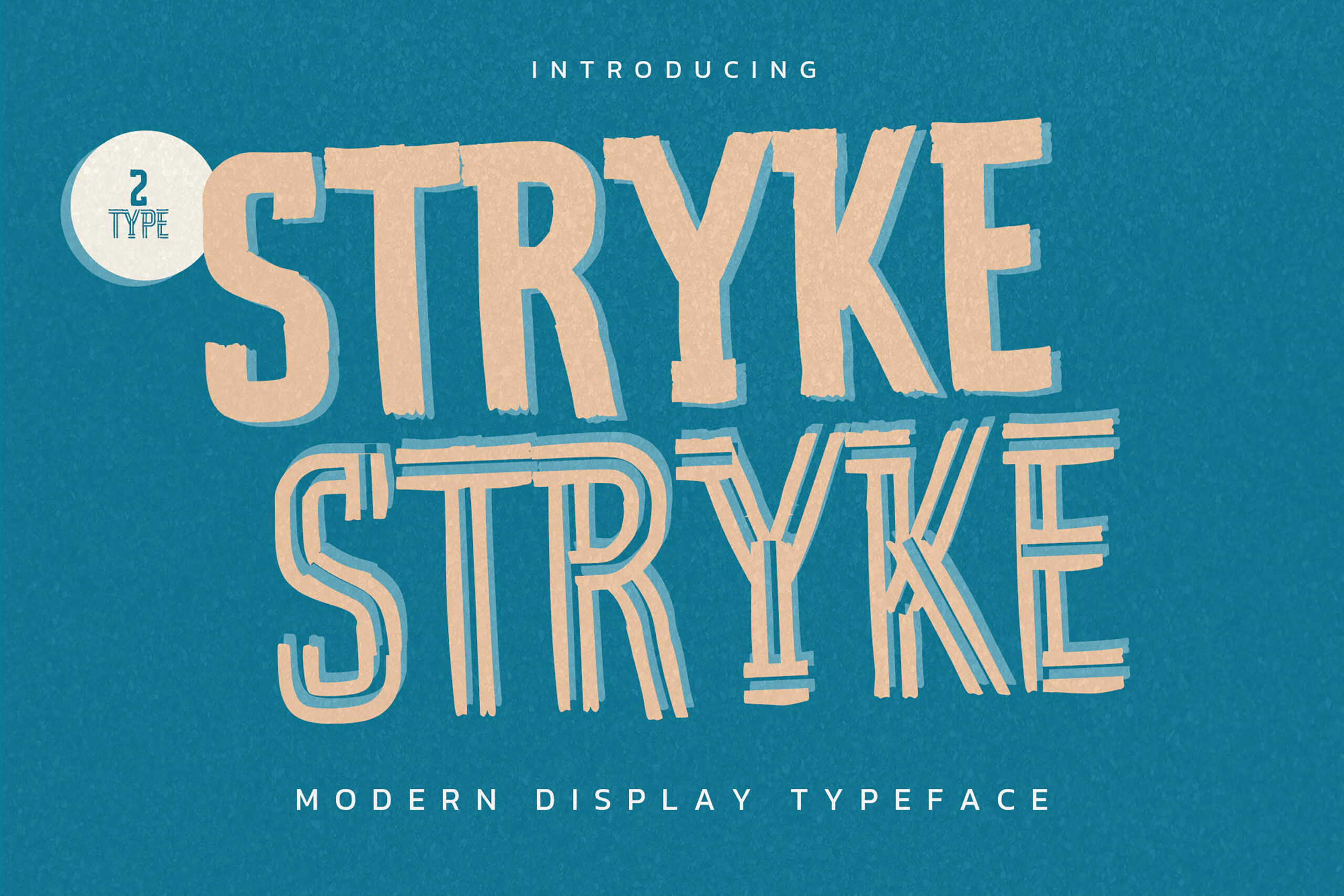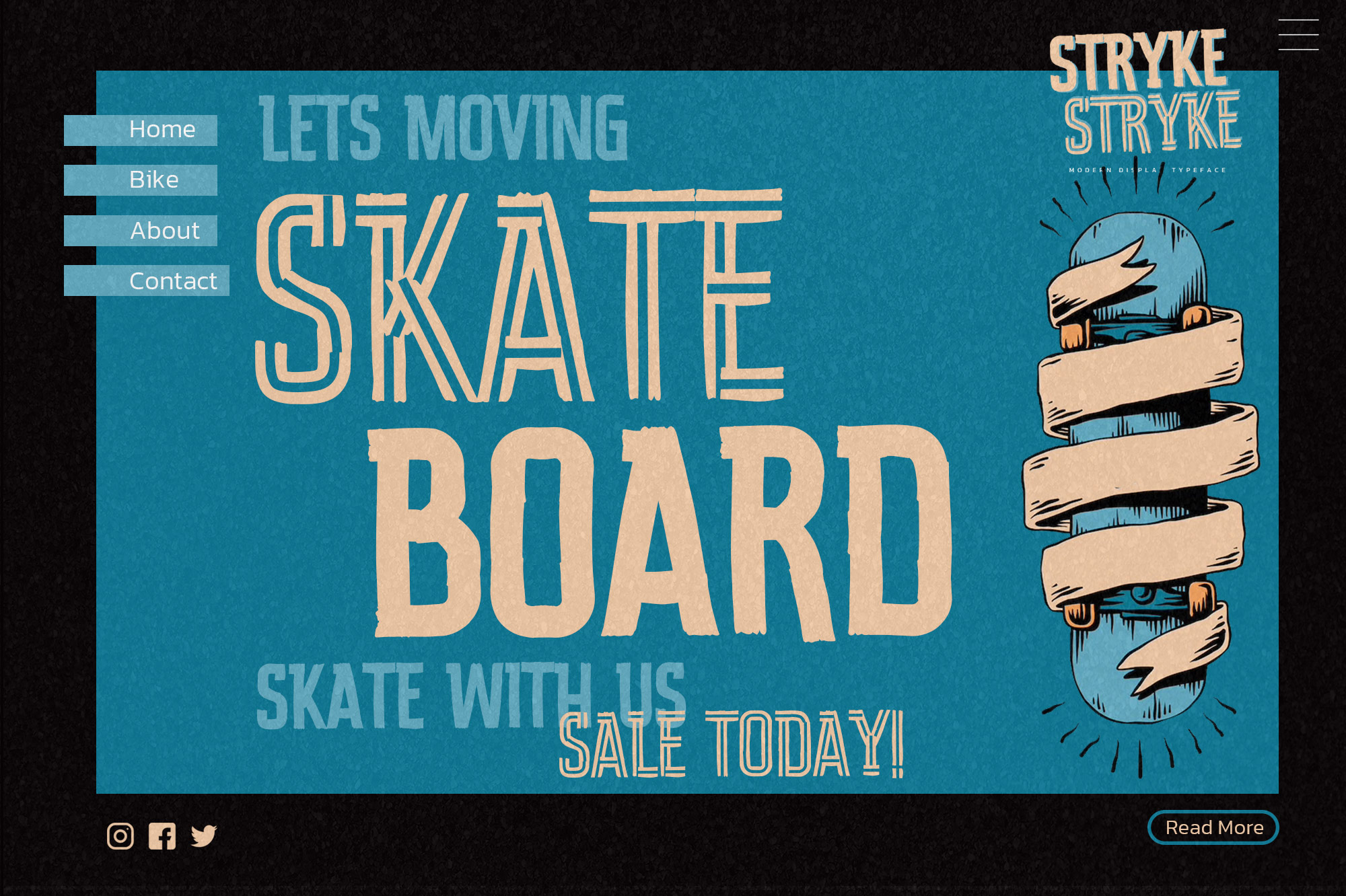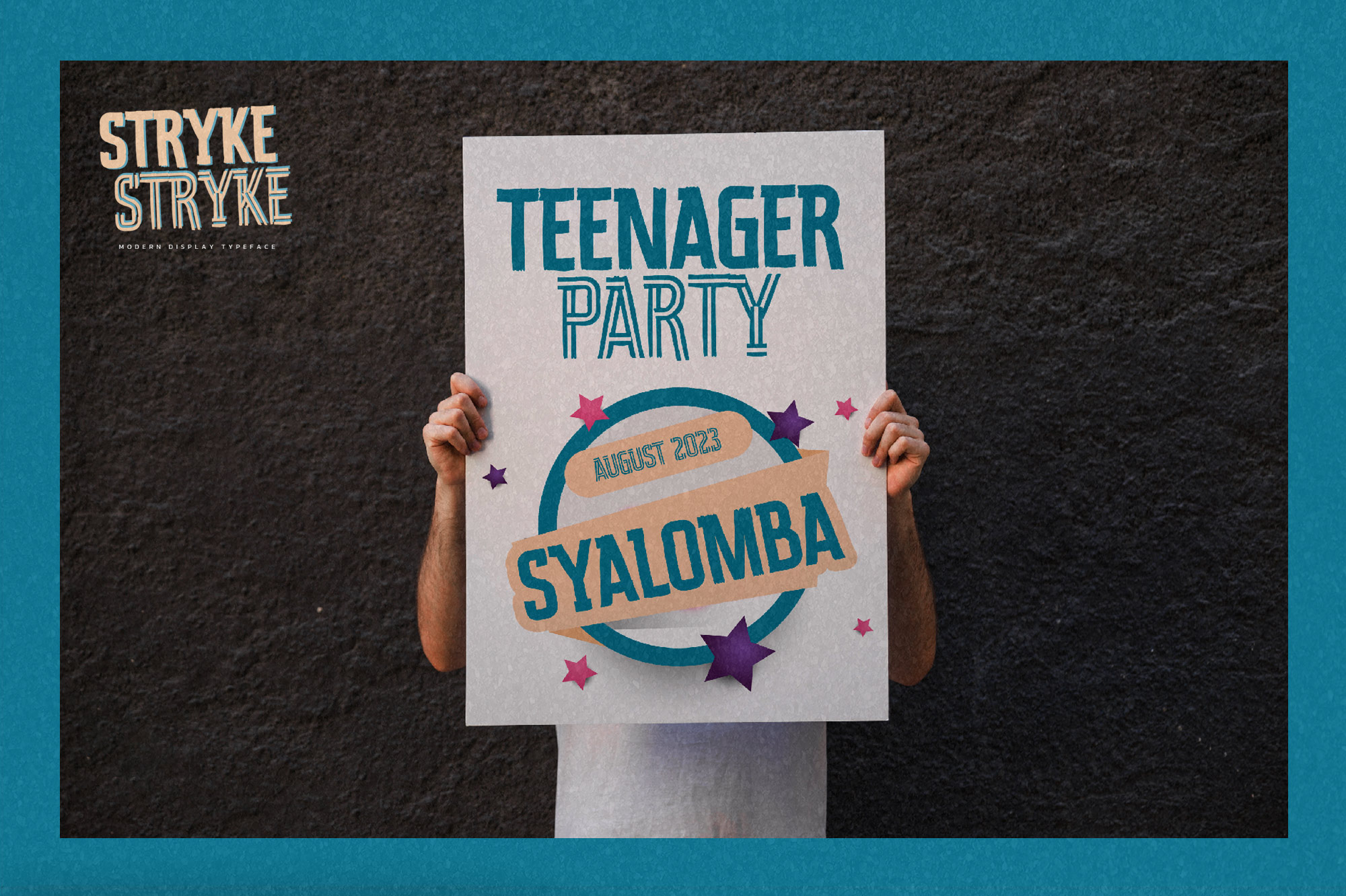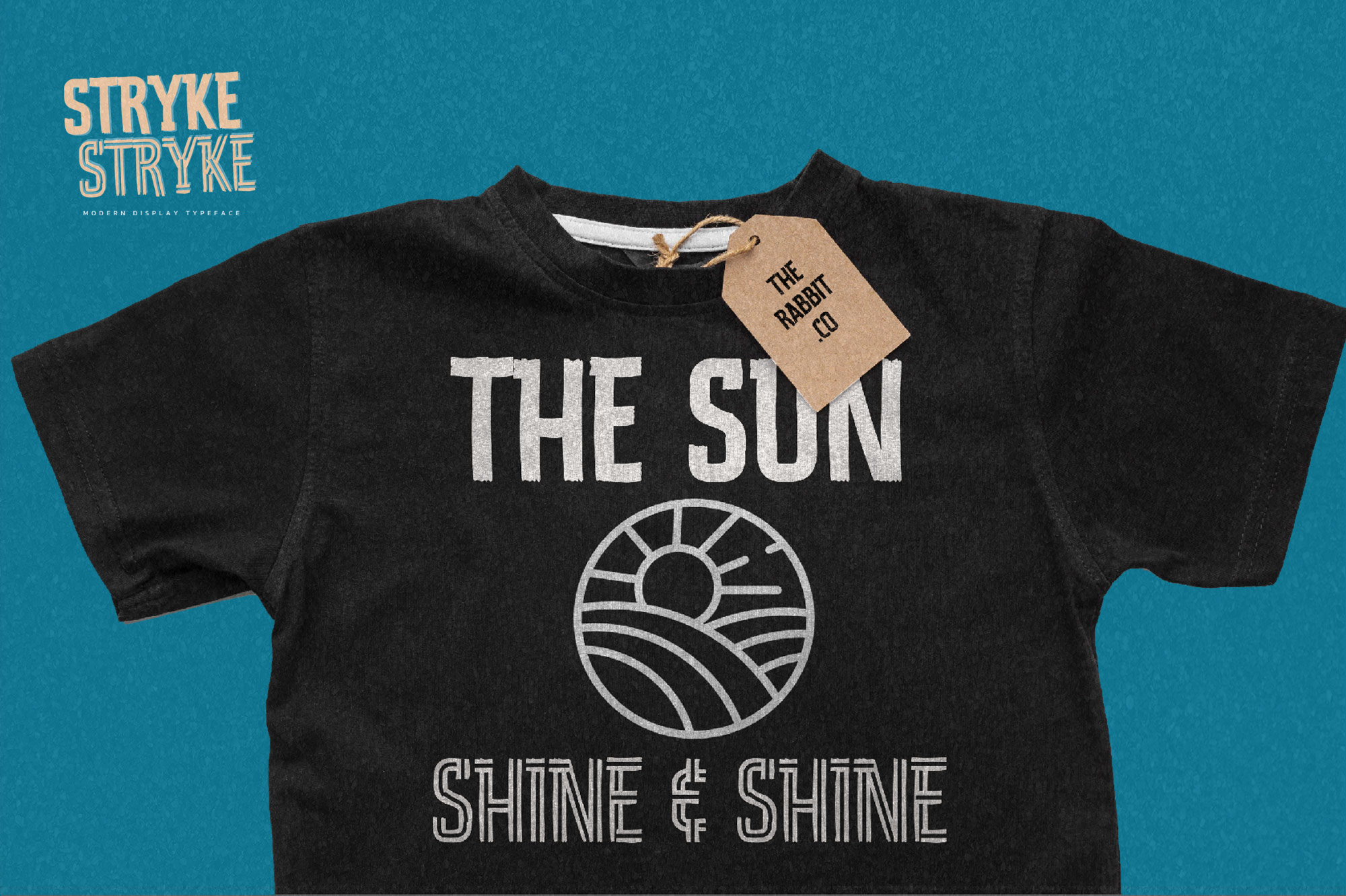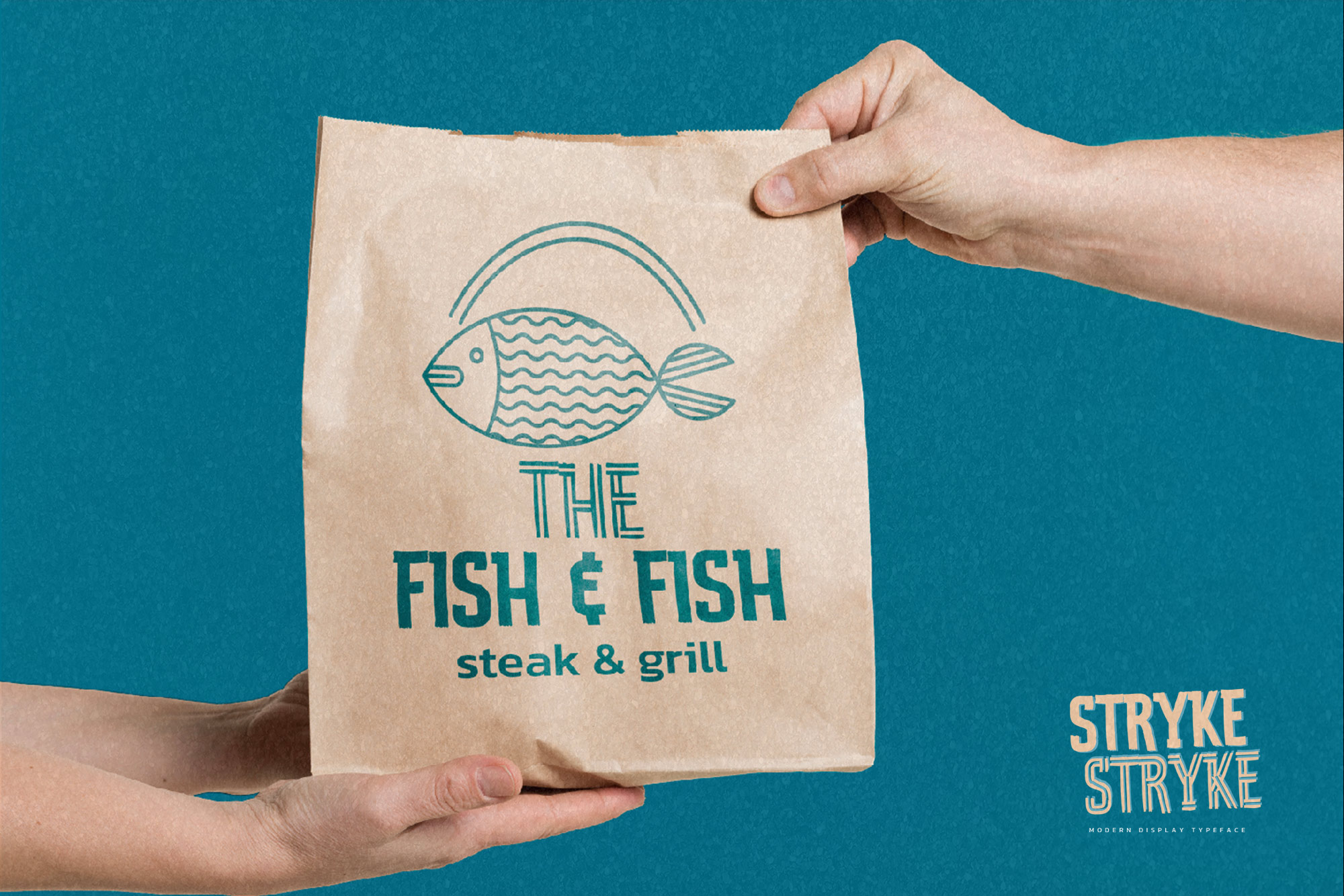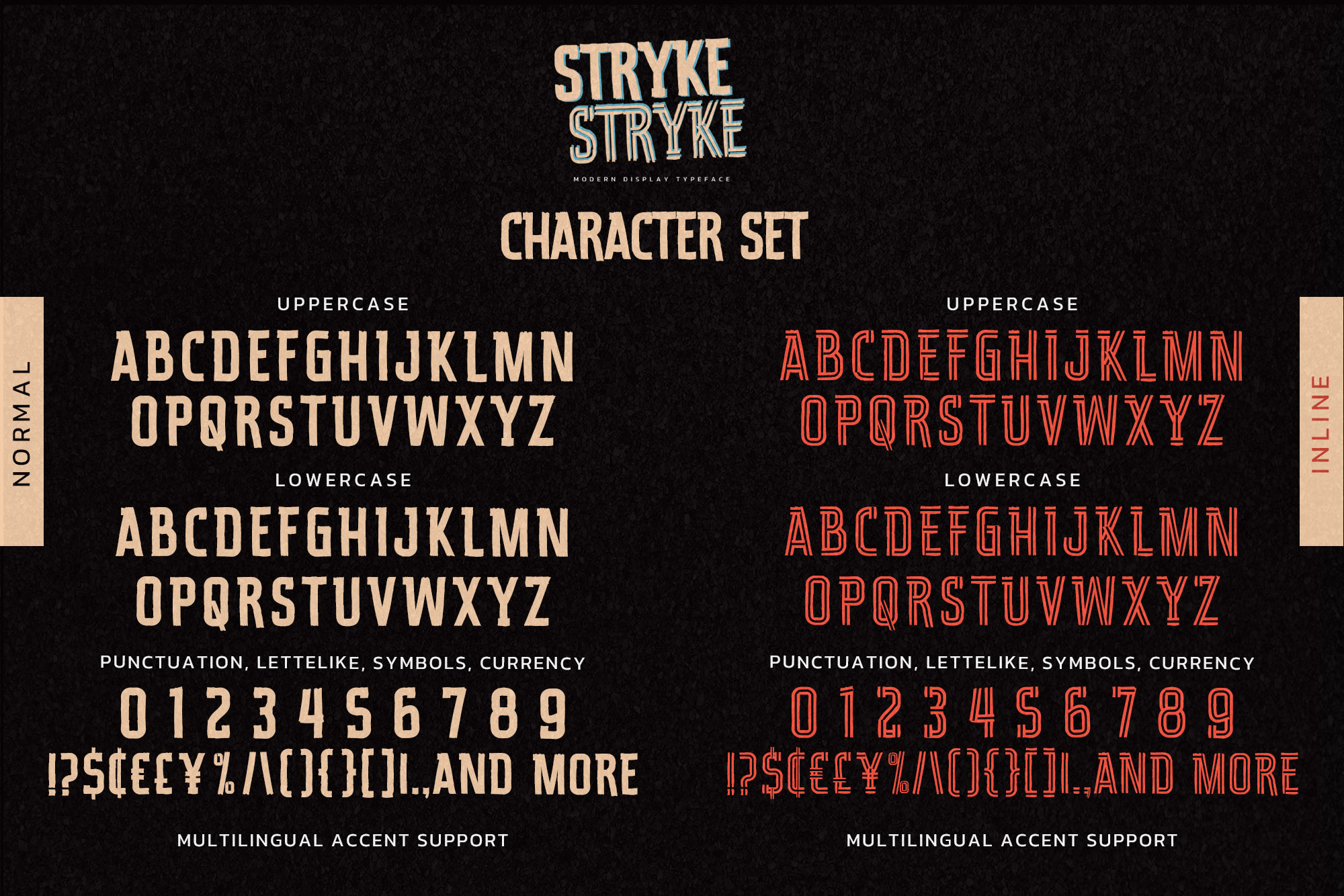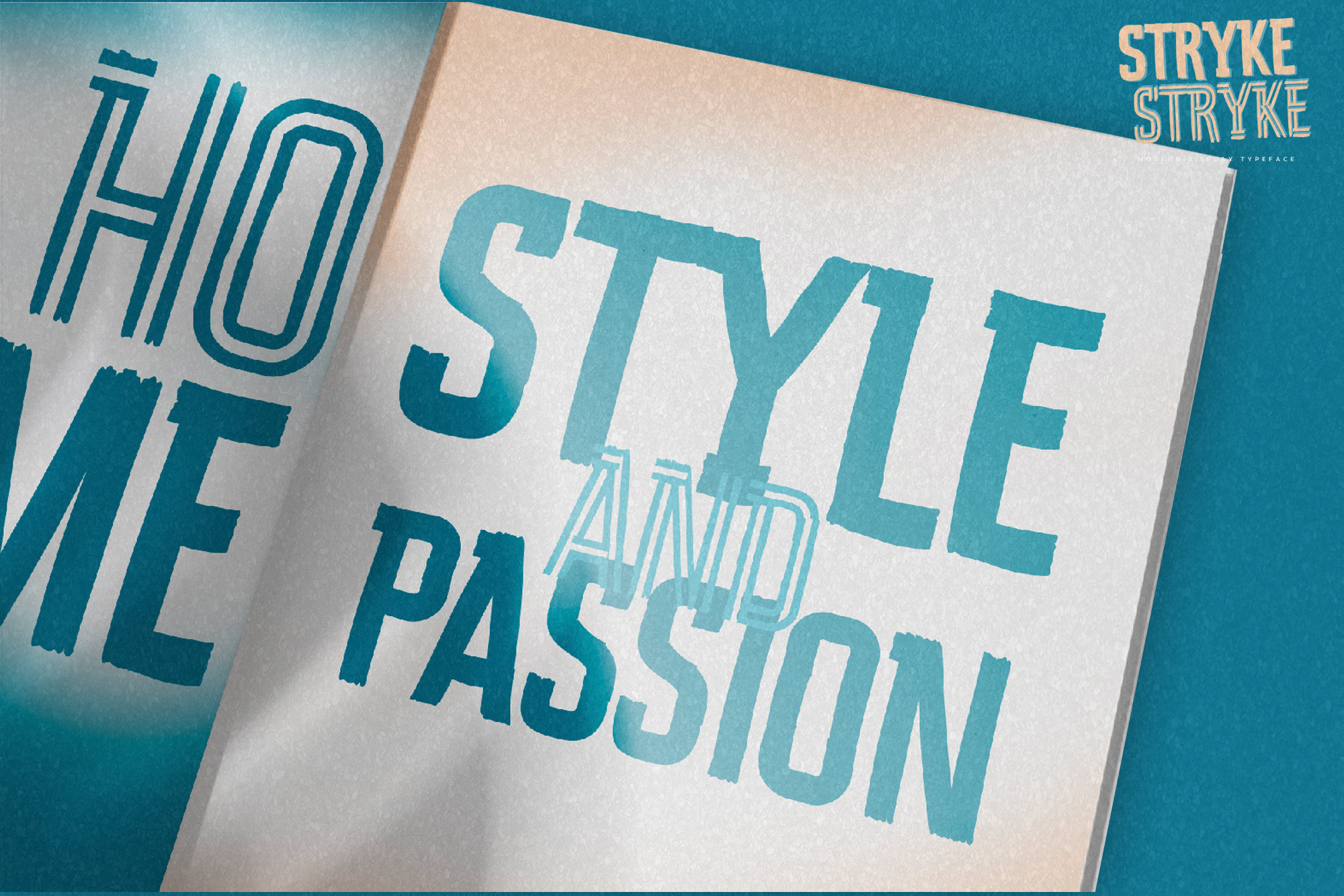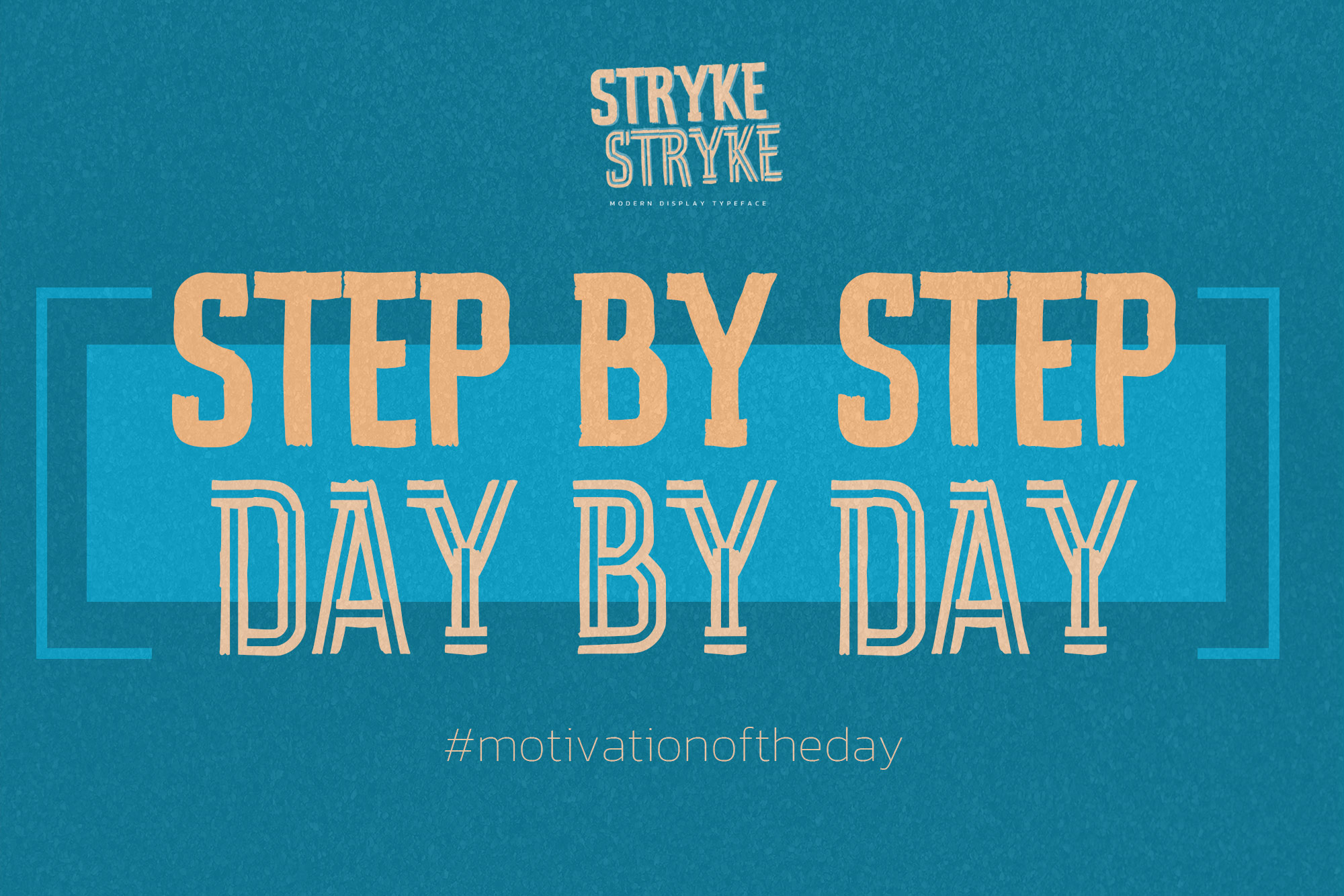
STRYKE – Modern Display Typeface , creative style and dramatic movement that is written casually and quickly.
The best for labels,poster,project , designs look modern, authentic and unique. It’s perfect for labels, quotes, posters, DIY projects, branding, packaging, greeting cards, websites, photography overlays, signs, scrapbooking, tags and so much more! That is why STRYKE has a textured, and unique characteristic more natural look.